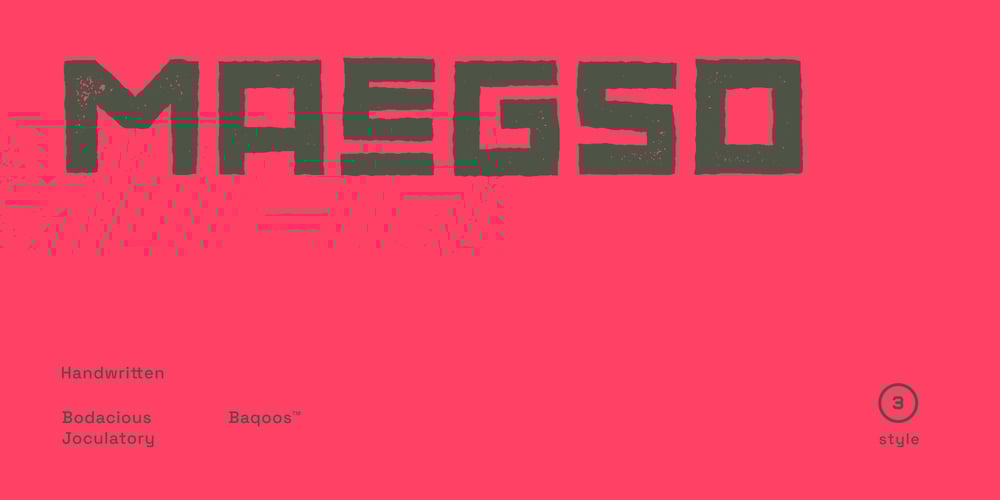
Maesgo
Maesgo font
Maesgo Font Family was designed by Andrew Seah and published by Baqoos. Maesgo contains 4 styles and family package options. Maesgo is a bodacious joculatory linear sans apt for headline, editorial, branding, packaging, printed materials and typographic applications. 200+ glyphs including punctuation and numerical.